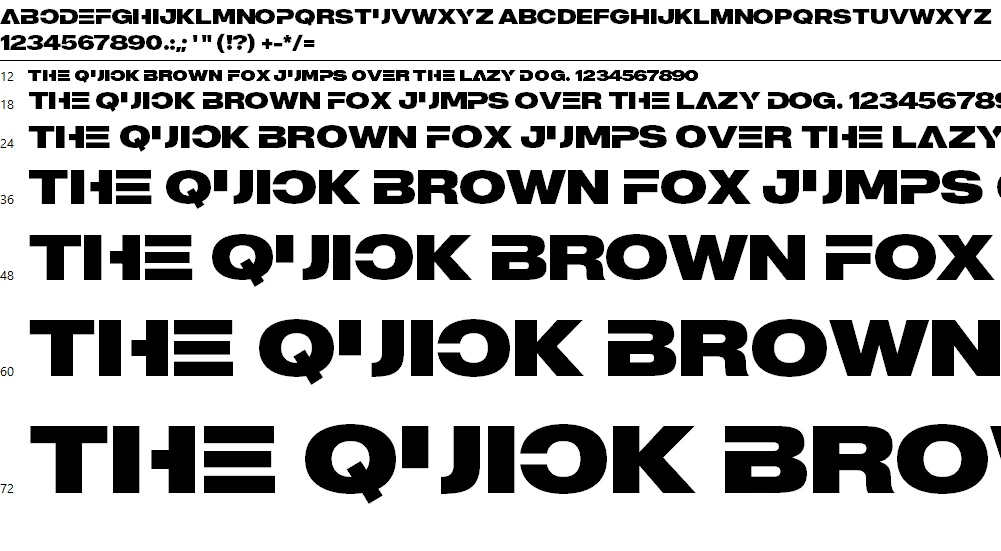
The MADE Outer Sans Font Family is a lovely sans serif font. Made Type has created a modern sans serif. Thanks to its ” simple ” look, the Sans serif font family has carved out a niche for itself among designers, thanks to its “simple” look. Uppercase and alternate uppercase letters, digits, and punctuation are just a few of the font’s remarkable characteristics.
The MADE Outer Sans Font Family is ideal for a variety of projects, including fashion, invites, album covers, game posters, movies, books, magazines, logos, branding, photography, wedding invitations, quotations, blog headers, posters, commercials, t-shirts, and more. The sans serif font family is an excellent choice for book covers.